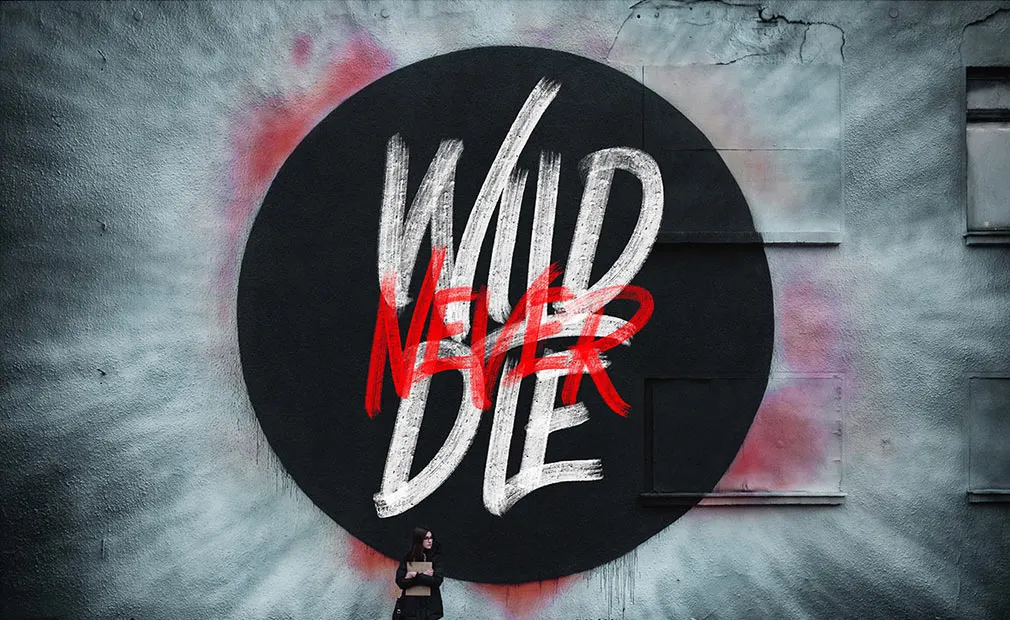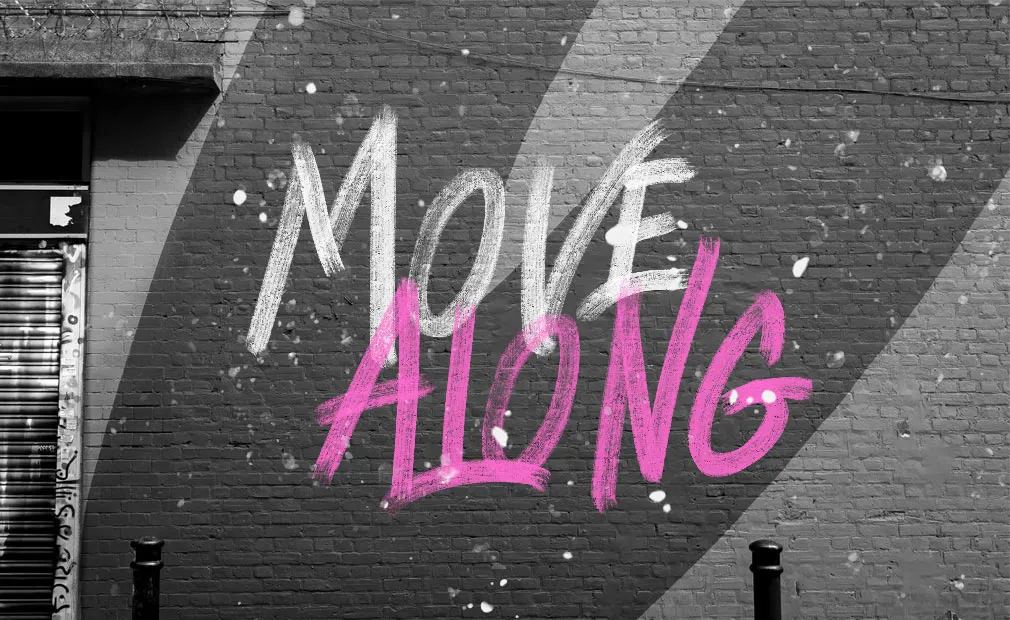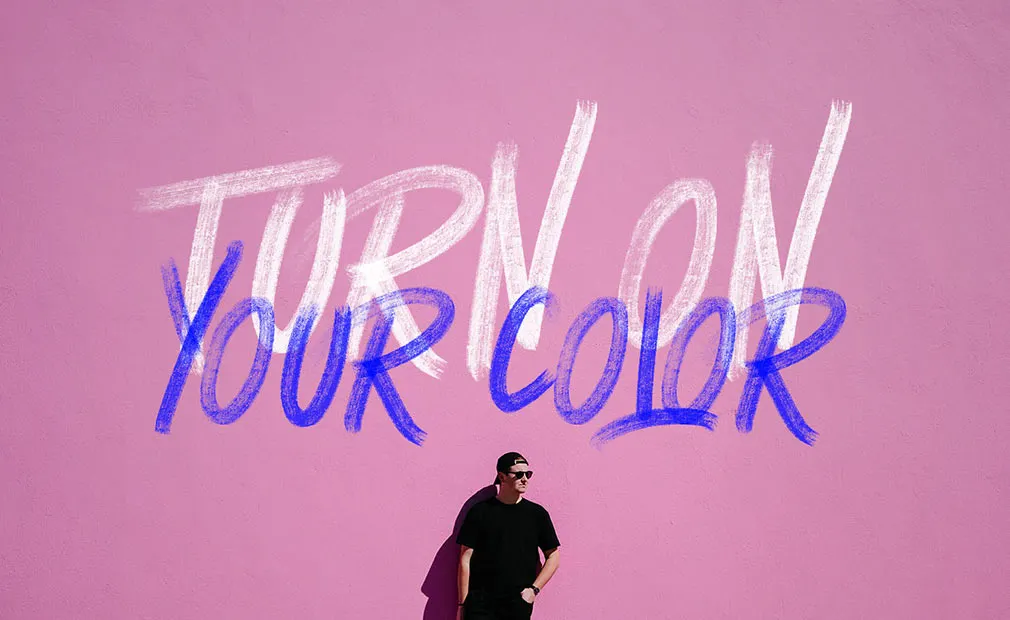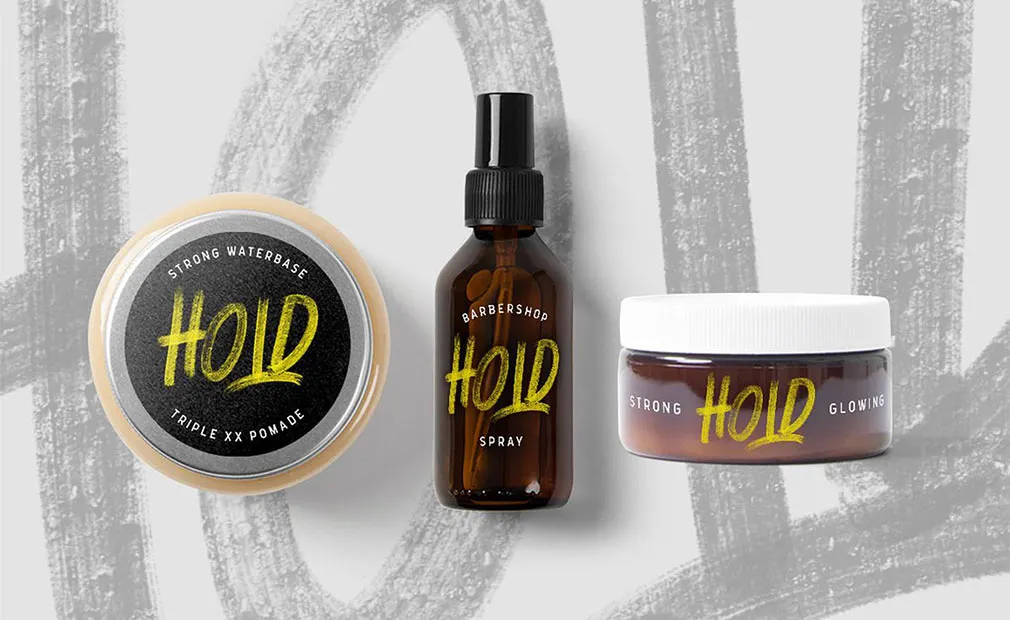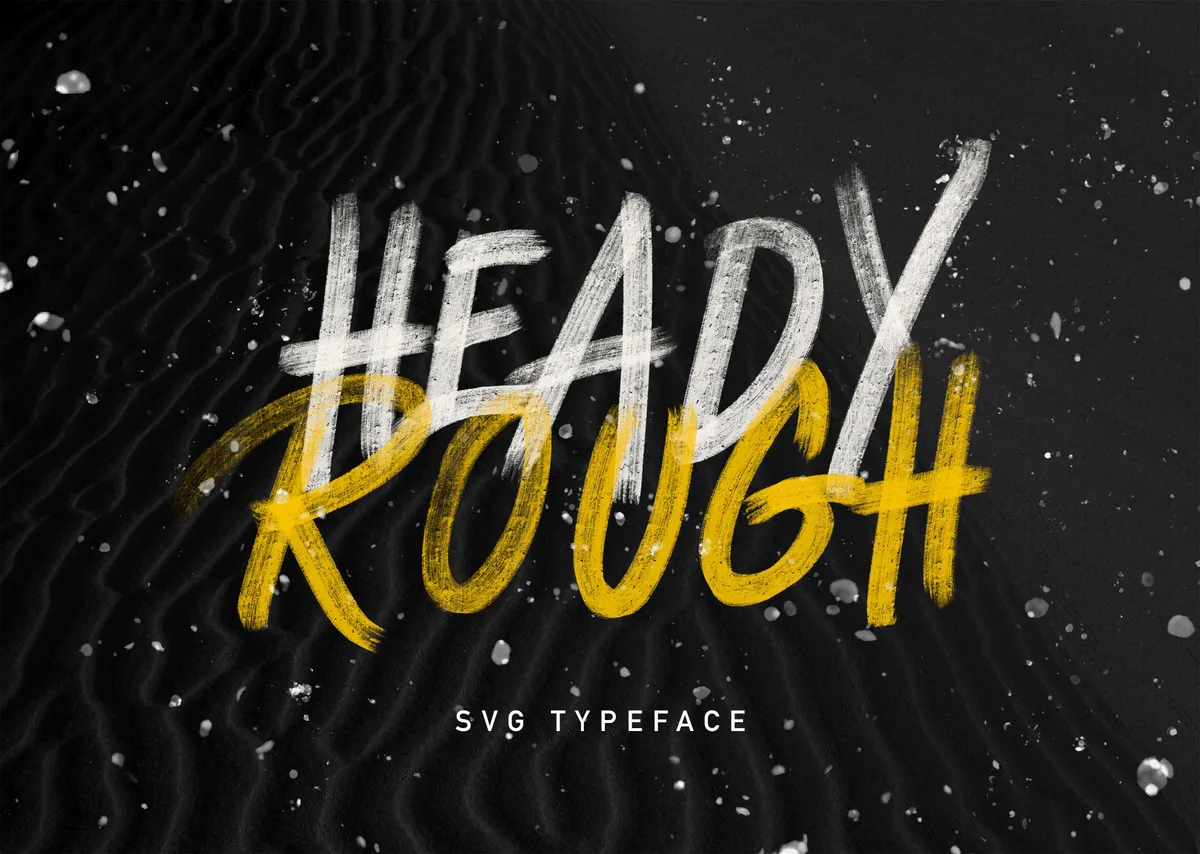
Heady Rough SVG Typeface
When SVG typefaces keep conquering the market, we just couldn't stay on the sideline so get ready to complement your collection with incredible, overwhelming and 100% essential Heady Rough.
Heady is a powerful hand-painted brush font, created by using high-resolution brush stroke images with incredible definition to bring some ultimately realistic, authentic look to it. Add this typeface to your prints, logos posters, stationery, packaging or whatever but try not to overdo your artwork: so vibrant itself, Heady Rough doesn't need too many accents to come along. So simply get it, search for victorious, yet simple combinations and set for grabbing the attention of your customers and colleagues.